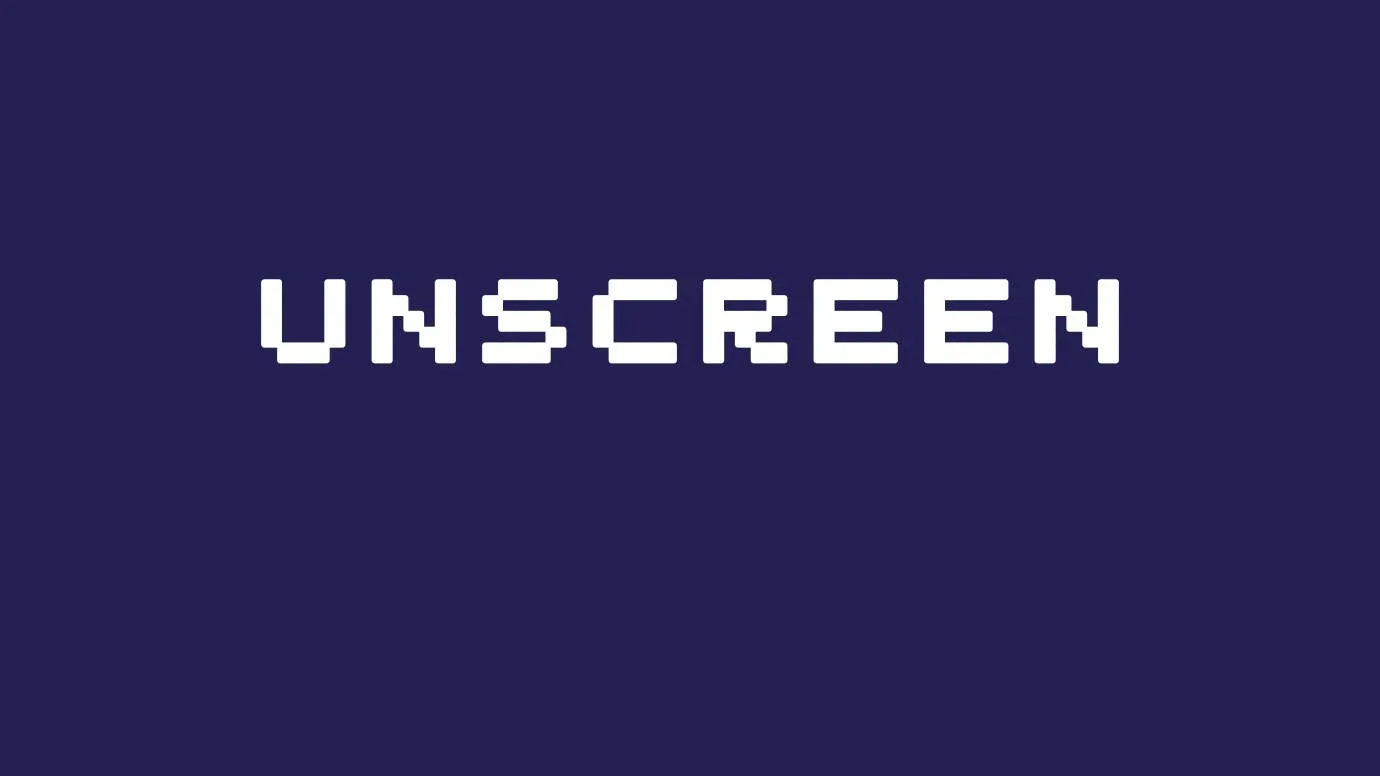
Unscreen Font
Unscreen Font Family is a very attractive LCD, techno font. The look of this font is good for making all types of display projects. It was designed by Manferd Kelin. It has amazing features as this font can be operated on all types of devices as it is available in both formats, True Type Font and Open Type Font. It can be downloaded on Windows, PC, MAC and Android.
It has amazing features as it contains 213 characters, 183 glyphs, and 1000 units per Em. the weight of this font is semi-light and its width is medium(normal). Unicode supports 2.0 and BMP only. Unicode blocks support basic Latin, Latin-1 Supplement, General Punctuations, Letterlike symbols, and much more. It also supports many international languages as well.
Features of Unscreen Font
• You can use it for all types of display projects. It can be used to design graphic designs in Adobe Photoshop, CSS, and Canva. This font is good for making website designs as well.
• It gives a very interesting look to video games to make logos and different types of titles. You can also print it on T-shirts, Mugs, and photo frames.
• This typeface is good for all types of print and digital media projects.
• To make Techno-related projects on YouTube channels for making attractive thumbnails it can also be utilized.
Details of Font
NameUnscreen Font
DesignerManferd Klein
TypeTechno
What is an Unscreen Font?
It is very unique and attractive techno-type font. It can be used to design many interesting LCD, techno-type projects as well.
Can I use Unscreen Font for making Logos?
You can make so many interesting projects by using this font. It is also good for making eye-catching logos as well.